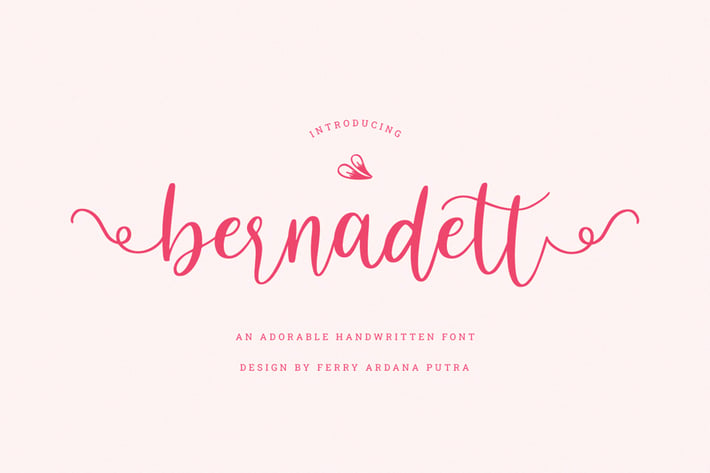
Bernadett | Handwritten Font
Author Faptype
Bernadett is a handwritten script font manufactured by Ferry Ardana Putra, this typeface support OpenType features and includes numeral, punctuation, ligatures and it also supports multi-languages. Combine this bouncy font with its ligature and ton of ornaments that you can freely choose for your precious project! This font is perfect for branding projects, wedding designs, advertisements, product packaging, product designs, label, photography, invitation, quotes and any project spiced up!
Bernadett features:
A full set of upper & lowercase characters
Numbers & punctuation
Multilingual language support
PUA Encoded Characters
+350 Glyph
Ligatures
Swashes
Ornaments
OpenType Features